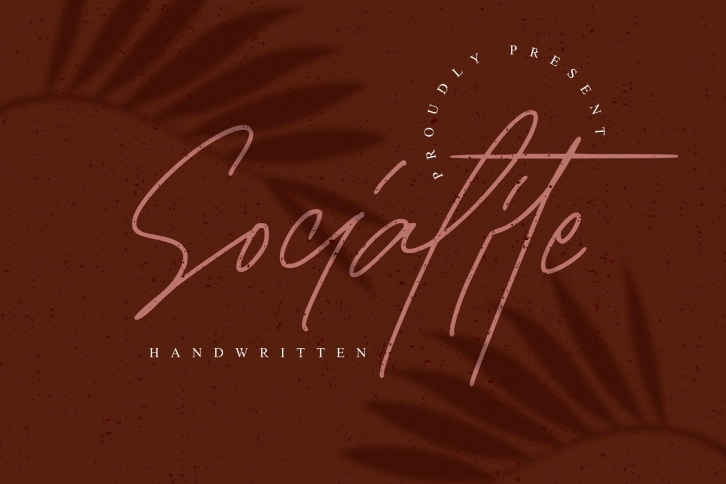
Socialite Signature is a great font that was designed by Goodigital13. Imagine the amount of combinations you can create using this font! The archive is 3.24 MB and it was released on March 13, 2021. Socialite Signature looks beautiful on wedding invitations, greeting cards, logos, posters, labels, t-shirt designs, logos, business cards and is perfect for use in ink or watercolor works, fashion, magazines, packaging and food menus, children's books and more!